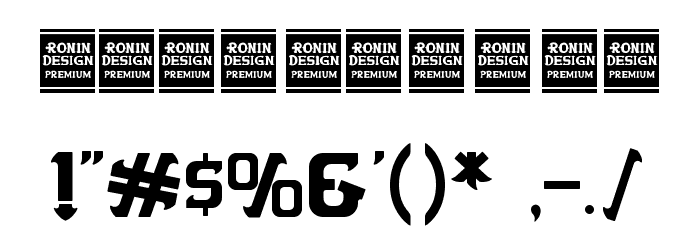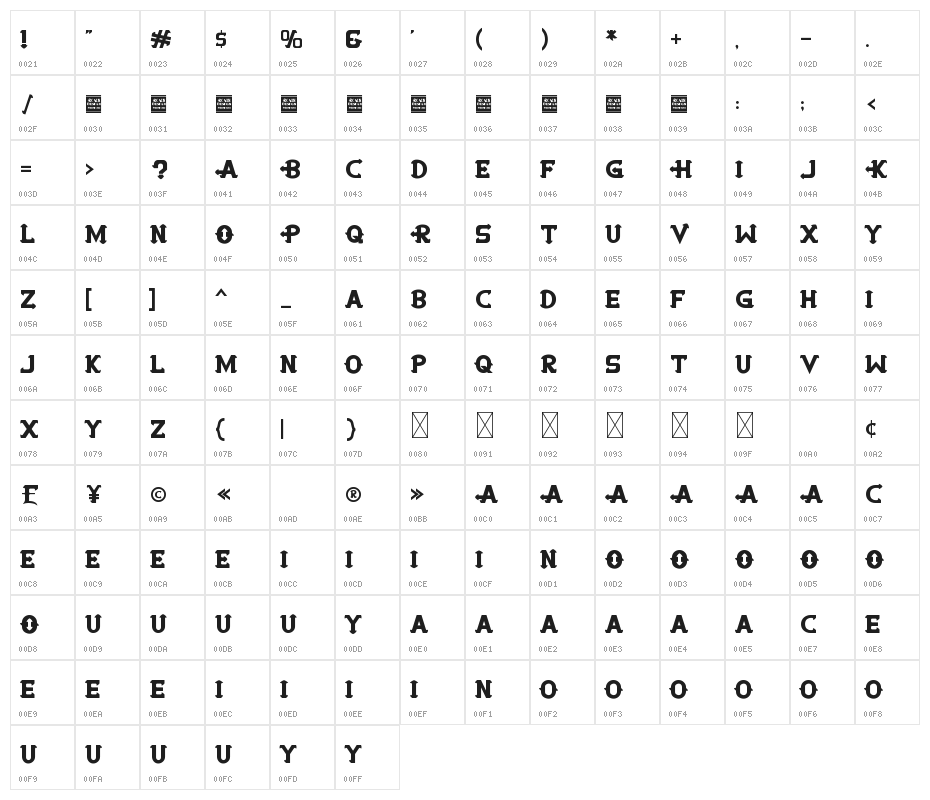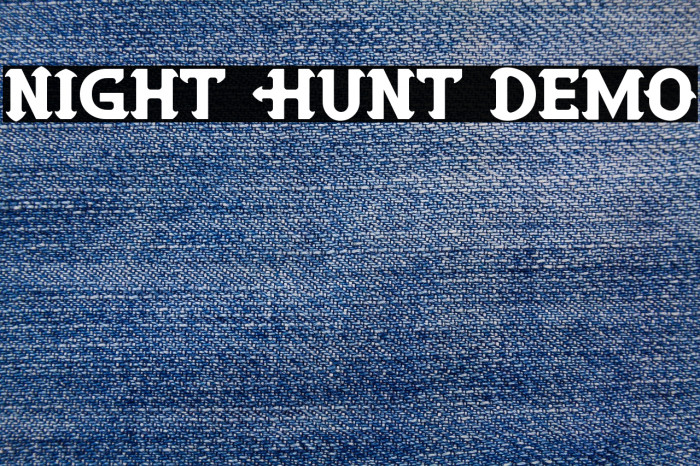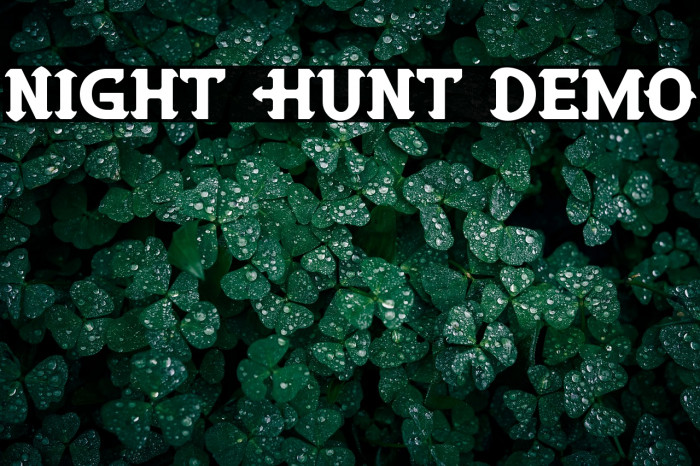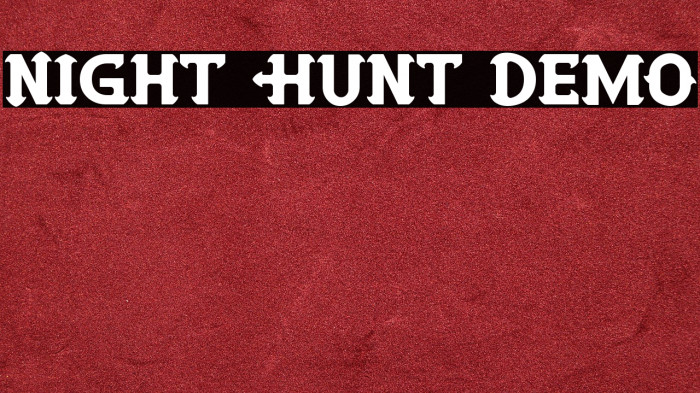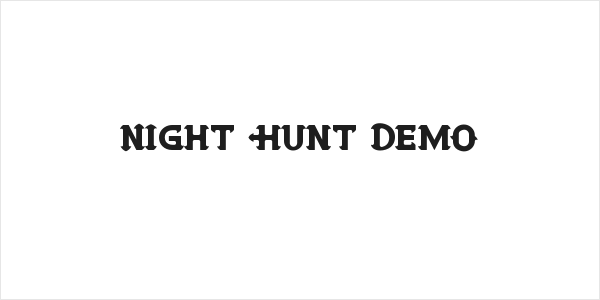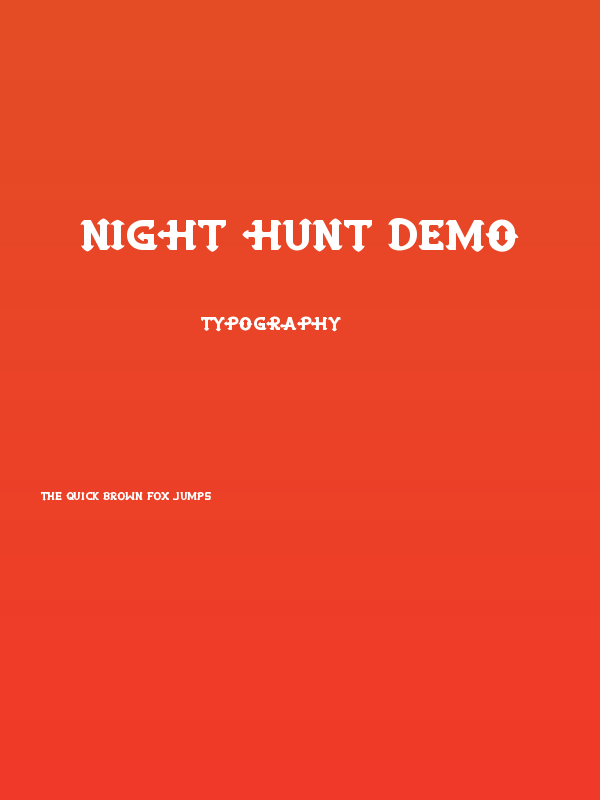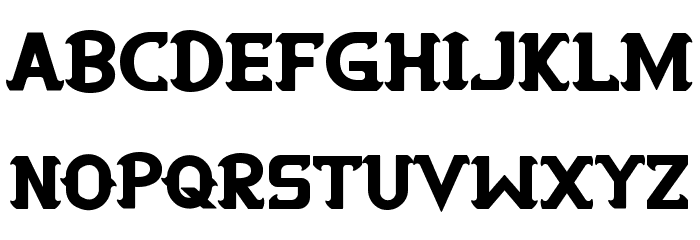
Night Hunt Demo Font
Night Hunt Demo Description
This font features a bold and striking design with a strong, angular appearance. The characters are crafted with sharp edges and a distinct geometric style, making them stand out prominently. The uppercase letters are particularly eye-catching, with a unique flair that adds a sense of dynamism and energy. The lowercase letters maintain the same boldness, ensuring consistency throughout the typeface. The numbers and special characters are equally robust, designed to complement the overall aesthetic. This font is ideal for projects that require a powerful and impactful visual presence.
| Proposed Projects | Suitable for posters, logos, branding, and headlines where a strong visual impact is desired. |